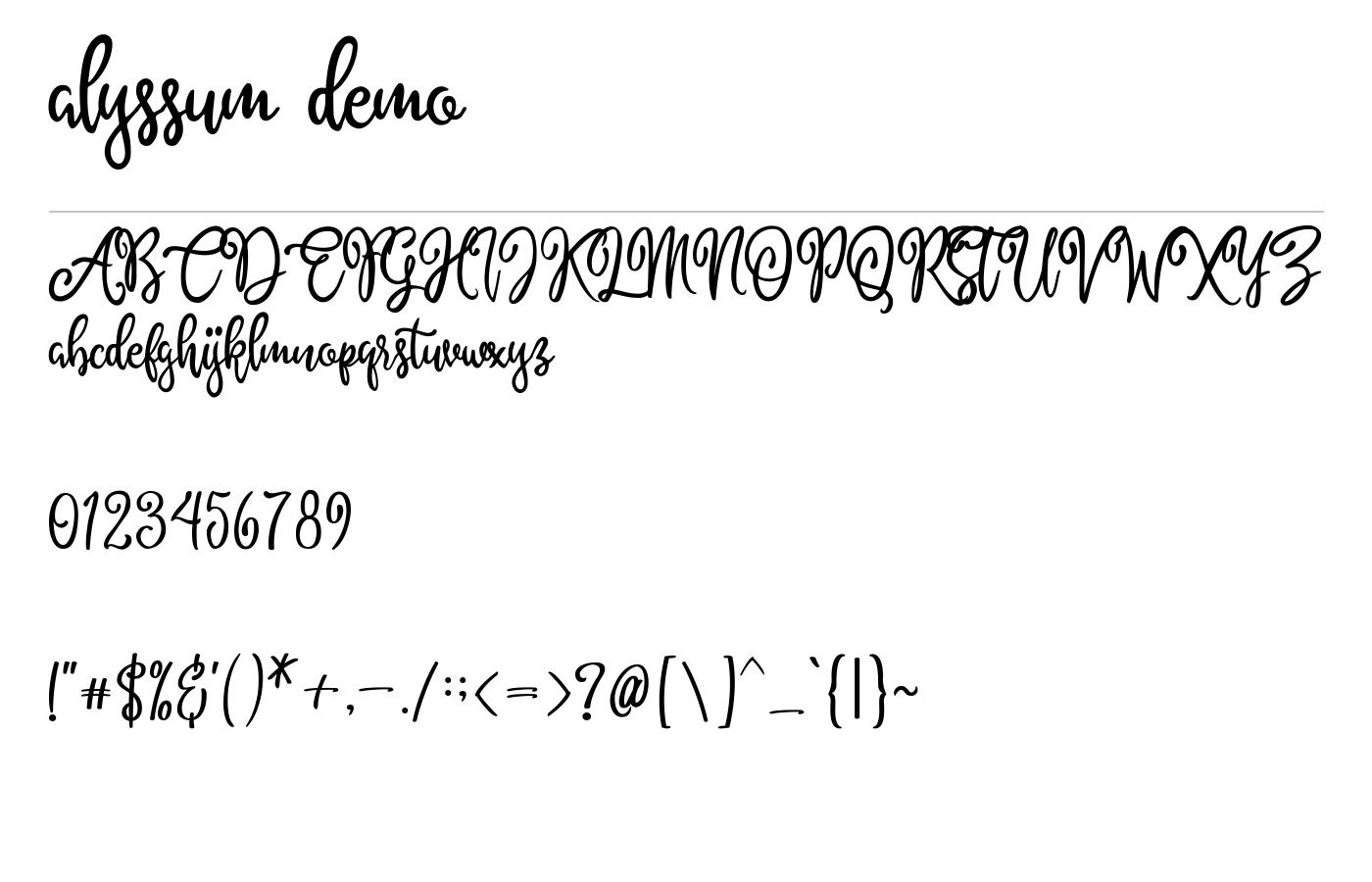
Alyssum Demo is a playful and elegant script font featuring smooth, flowing strokes with a hand-drawn feel. Its light weight and lively swashes make it ideal for creative branding, invitations, and decorative headlines where a friendly yet sophisticated touch is desired. This font works best in designs that seek to convey warmth, charm, and personal flair.
alyssum demo Font
About alyssum demo Font